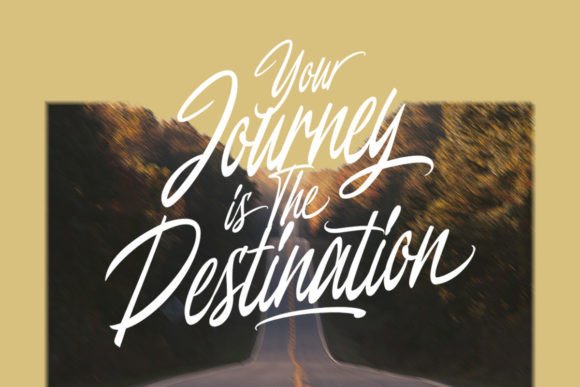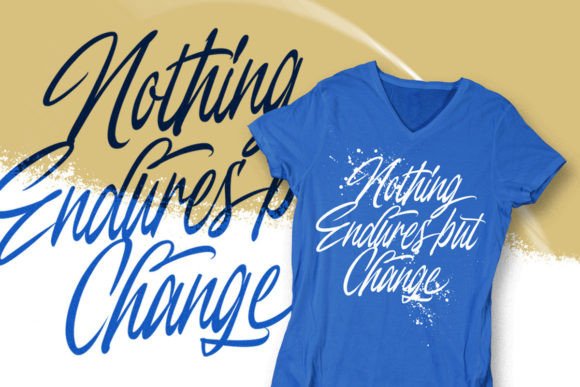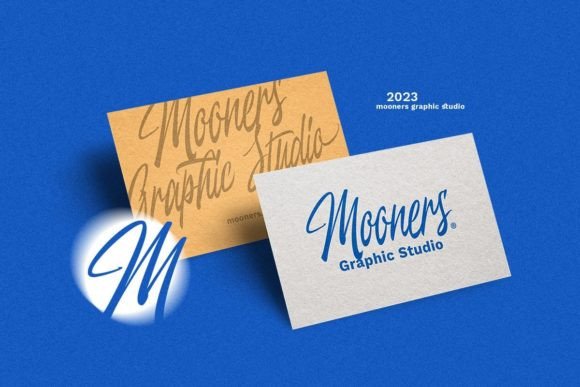
Introduction to Morytone Font
Morytone is an exquisite handwritten font, masterfully designed to become a true favorite.
Why Choose Morytone Font?
Morytone Font offers exceptional quality and versatility, making it a valuable addition to your design toolkit. Whether you’re creating for personal projects or commercial use, Morytone Font delivers professional results.